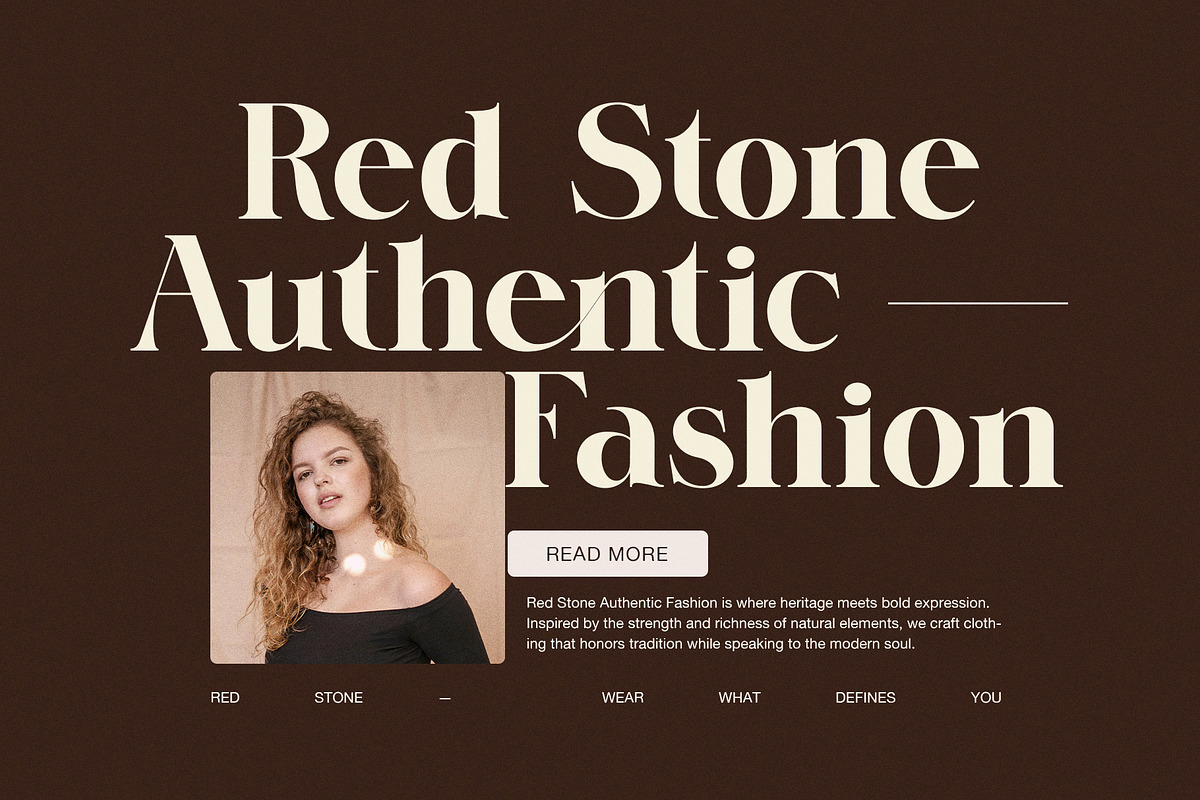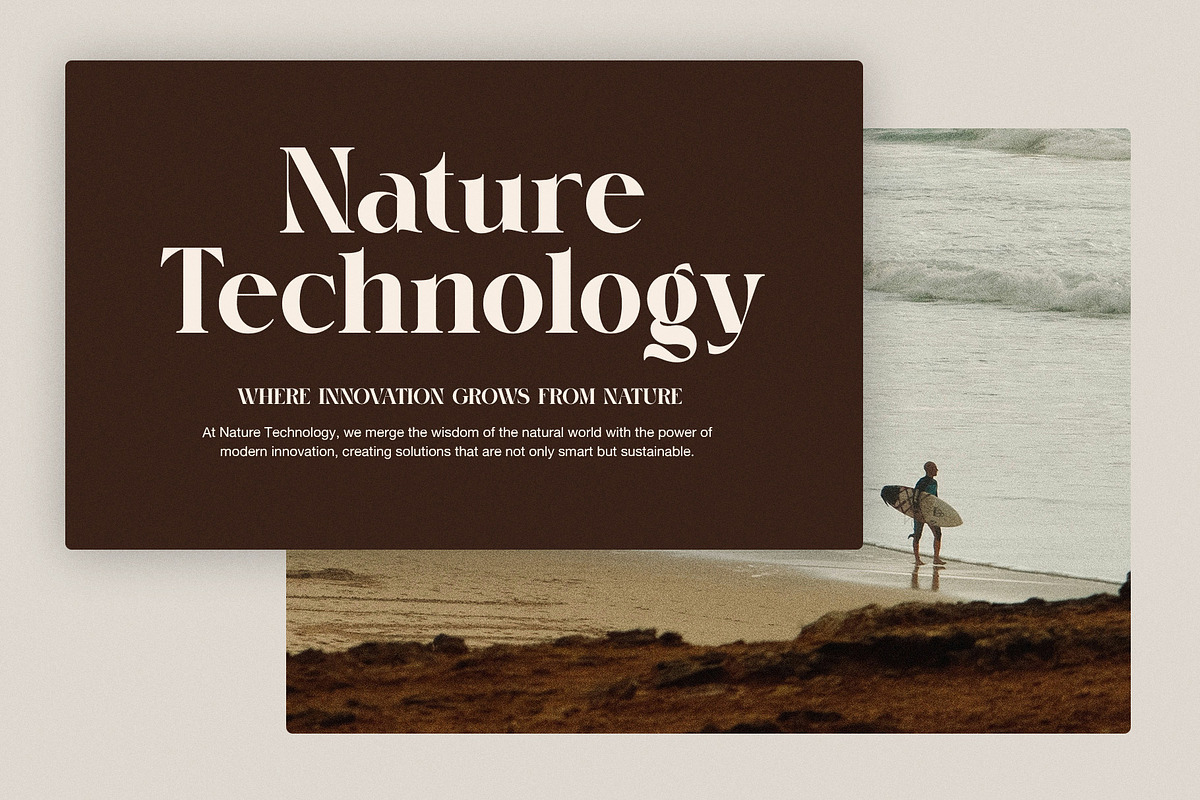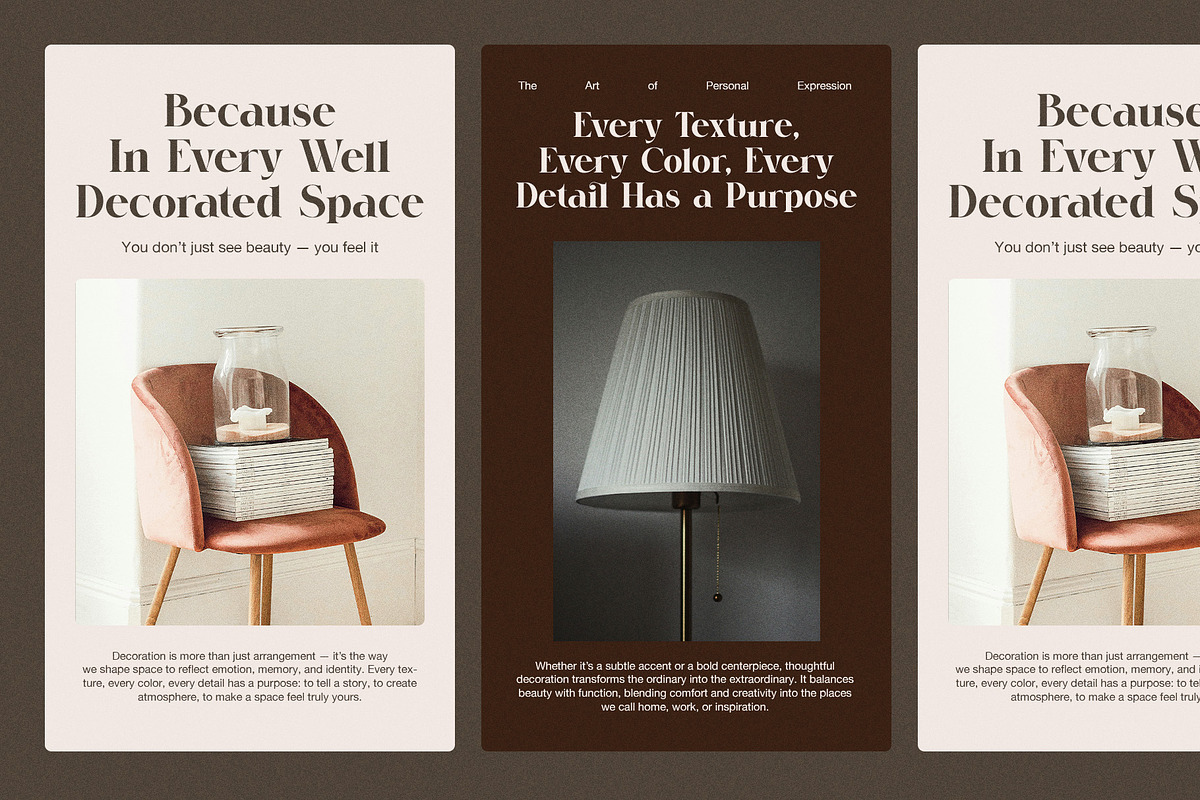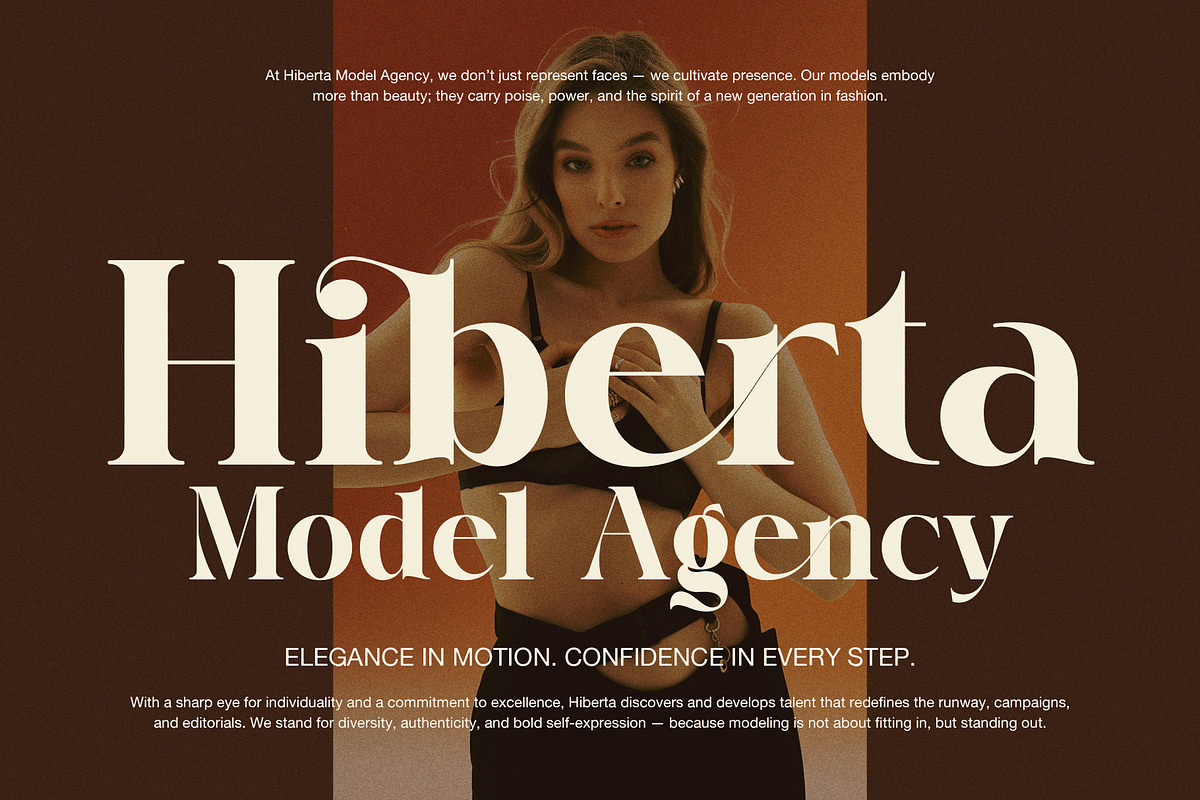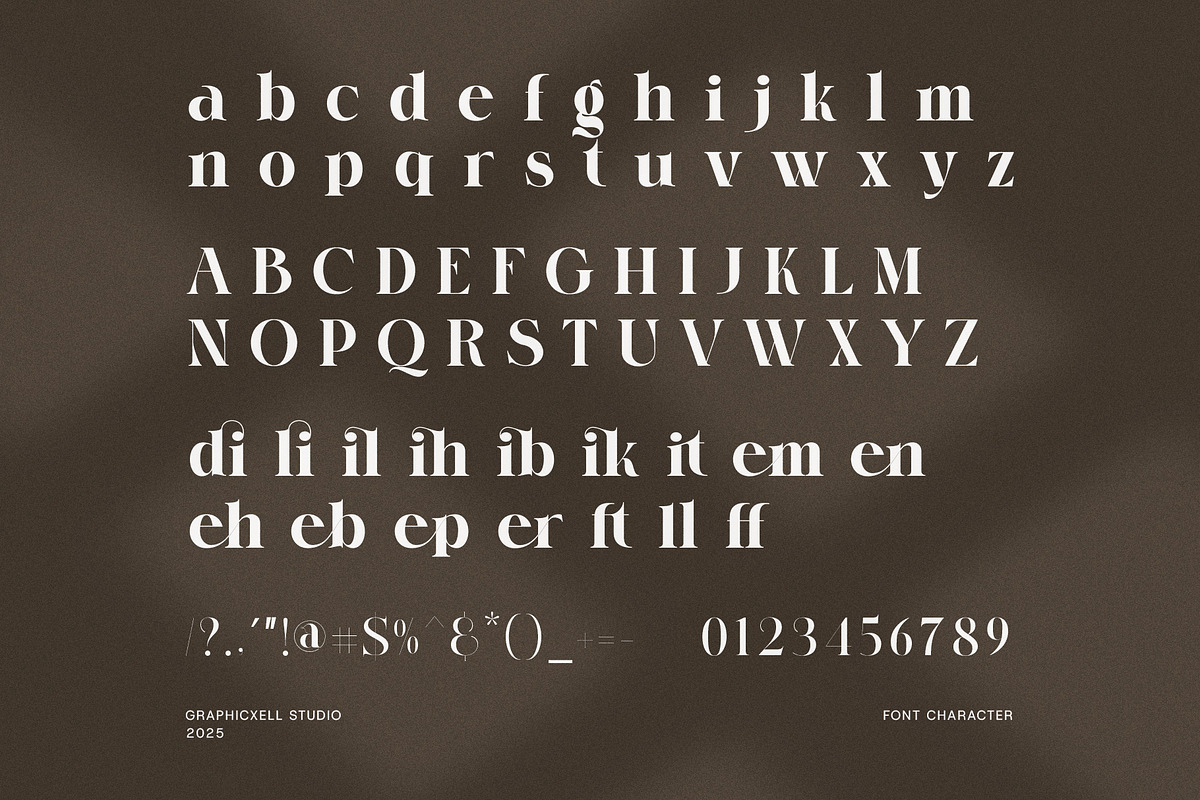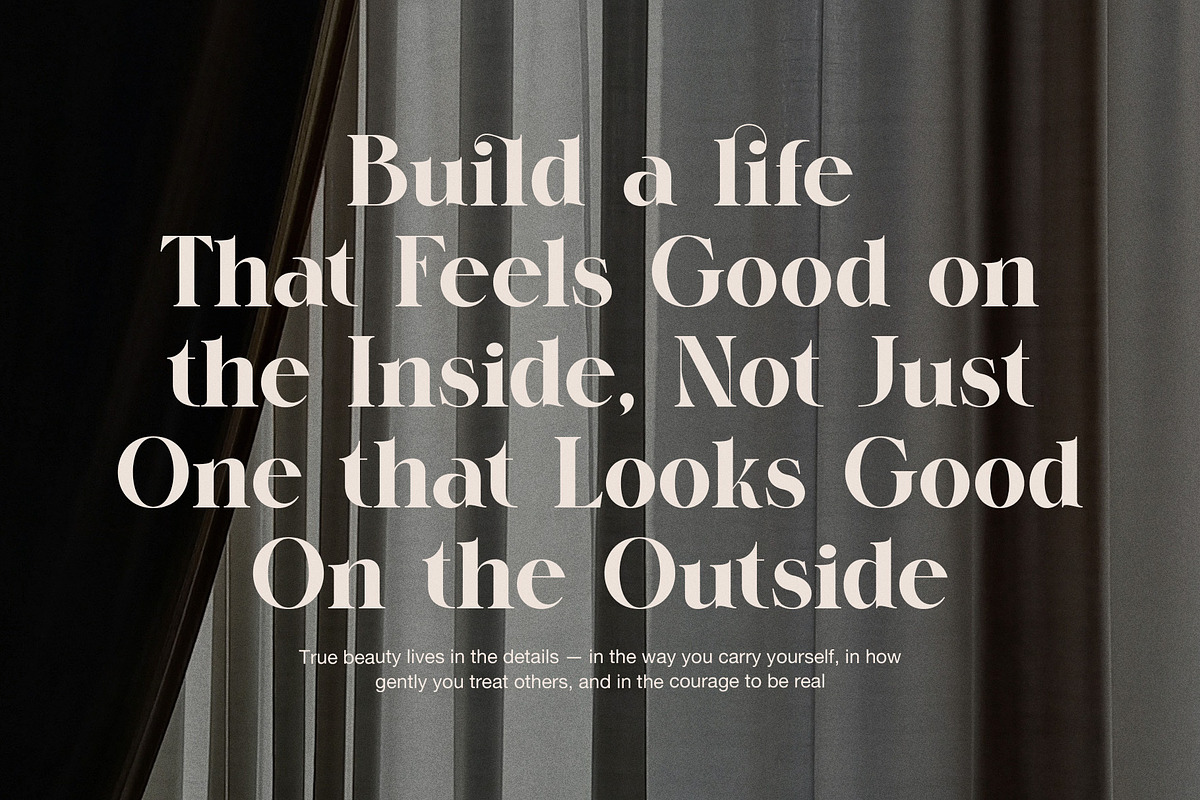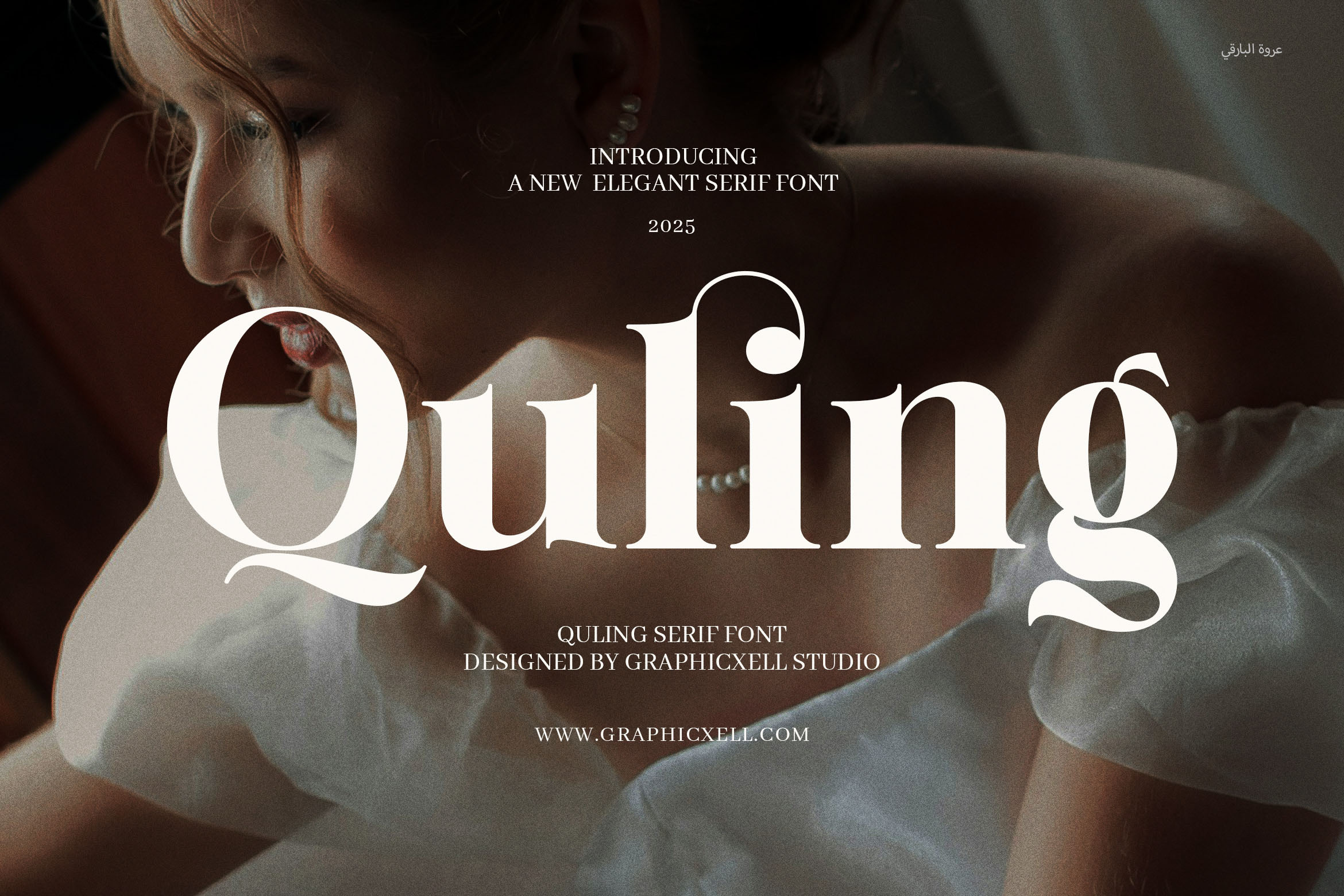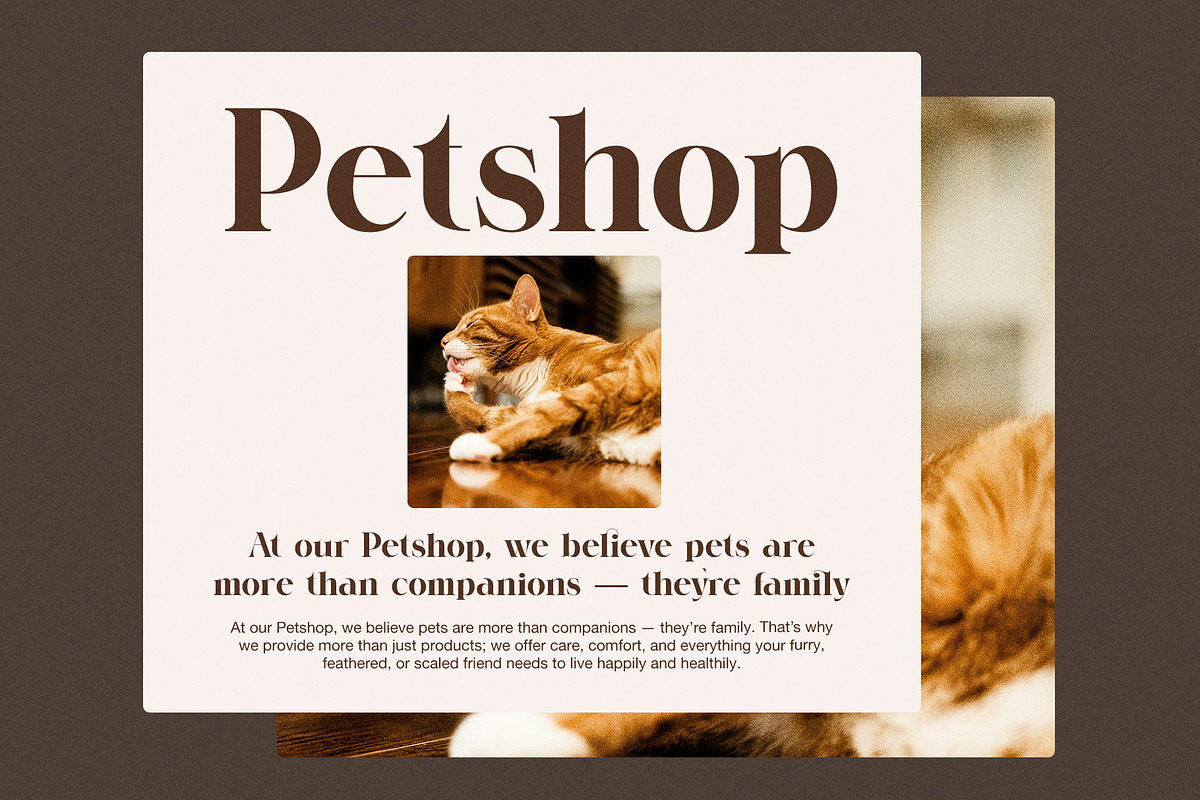
Quling Elegant Serif Font
Quling Elegant Serif Font is a modern serif typeface that blends sophistication with a creative edge—perfect for designers seeking a stylish, versatile font that adds a premium touch to every project. Featuring sleek lines, refined curves, and distinctive serif details, Quling captures attention while maintaining effortless readability.
Designed with elegance at its core, Quling is ideal for a wide range of applications, including logo design, brand identity, packaging, fashion editorials, product labels, web design, magazine layouts, and luxury advertising. Its sharp yet graceful characters give it a refined presence, making it especially suitable for boutiques, beauty brands, high-end restaurants, and lifestyle blogs.
What makes Quling truly stand out is its harmonious balance between classic serif structure and contemporary flair. The font’s unique letterforms are infused with subtle personality—creating a stylish yet timeless aesthetic. Whether used in large headlines or delicate subheadings, Quling adapts beautifully to both bold and minimal design styles.
This font includes uppercase and lowercase characters, punctuation, numerals, and multilingual support—making it a practical and polished choice for professional designers and creatives. With its high contrast and smooth flow, Quling offers a luxurious visual rhythm that's perfect for everything from editorial titles and wedding invitations to cosmetic branding and upscale menus.
Quling is more than a typeface—it’s a visual identity enhancer. It adds character and charm to every piece, giving your designs a sophisticated voice that stands apart in a crowded visual space. Use it to evoke elegance, class, and creativity with every letter.
Whether you're crafting a new brand, launching a premium product, or designing your next big project, Quling Elegant Serif Font is your go-to for achieving a refined, modern look with timeless appeal.